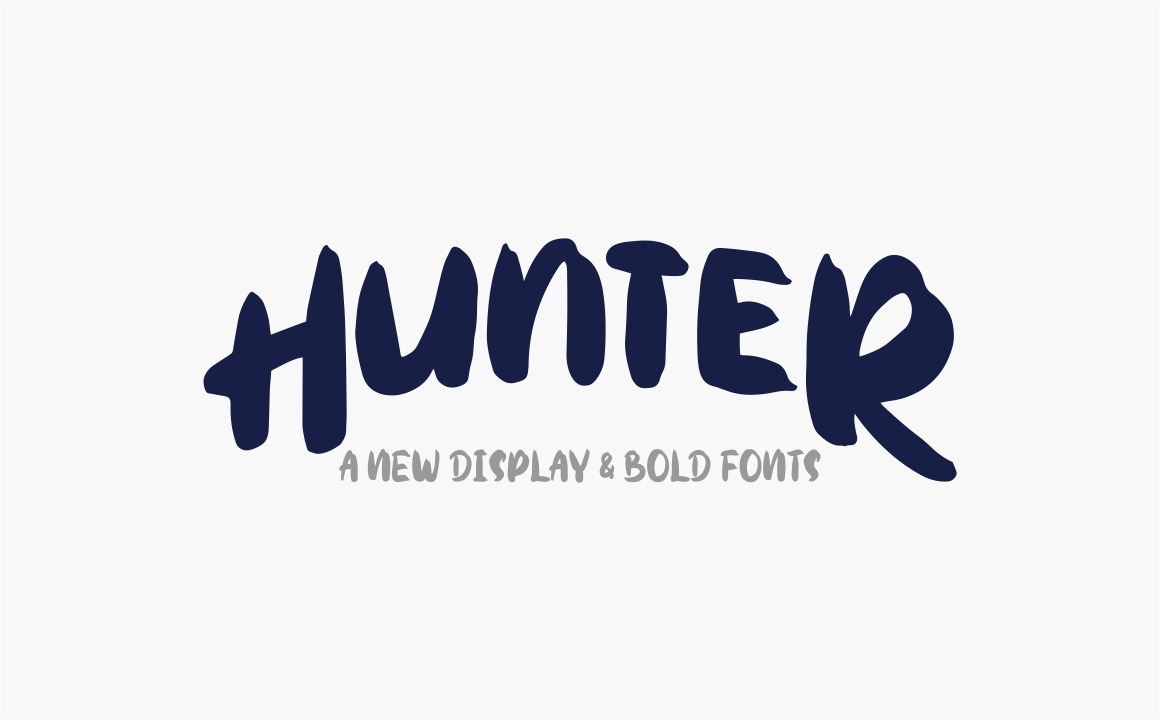
Hunter Typeface
Introducing a New Display and Bold font : HUNTER
HUNTER is a display and bold font, ideal for use in projects that need an the best design. This font is great for logo, logotype, branding, webfont, fashion, label, book cover, t-shirt, headline, magazine, and other.